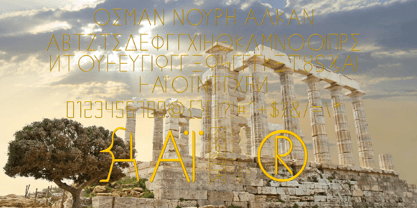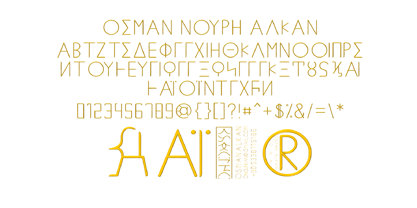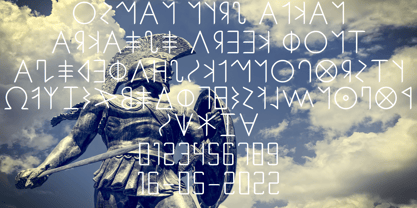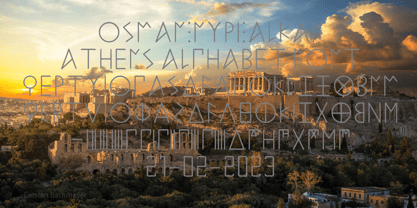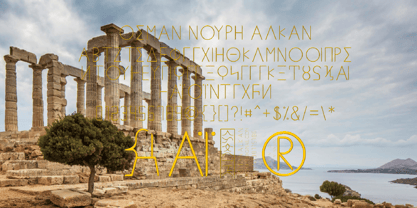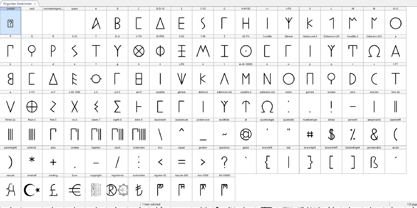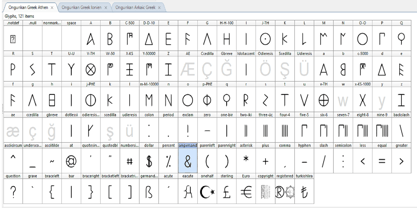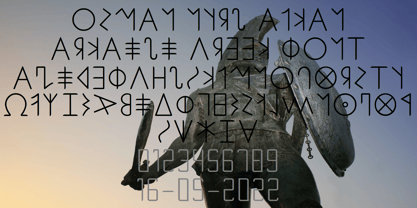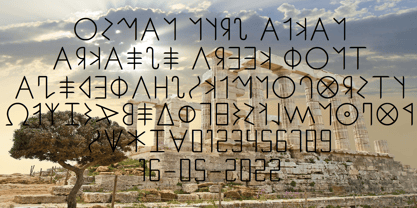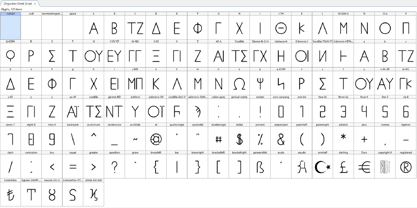
Ongunkan Greek Ionien Ellada
The Ongunkan Greek Ionien Ellada Font Family was designed by Osman Nuri ALKAN and published by Runic World Tamgacı. Ongunkan Greek Ionien Ellada contains 4 styles and family package options. More about this family
I designed and presented a four-font family featuring a modern version of Greek script with an archaic appearance, incorporating designs from Archaic, Athenian, and Ionian scripts. These fonts can be used in all areas, including academic studies, personal projects, prints, and visual arts. I tried to reflect the evolution of Greek script since ancient times and its rigid design. Today, works with soft lines are abundant.